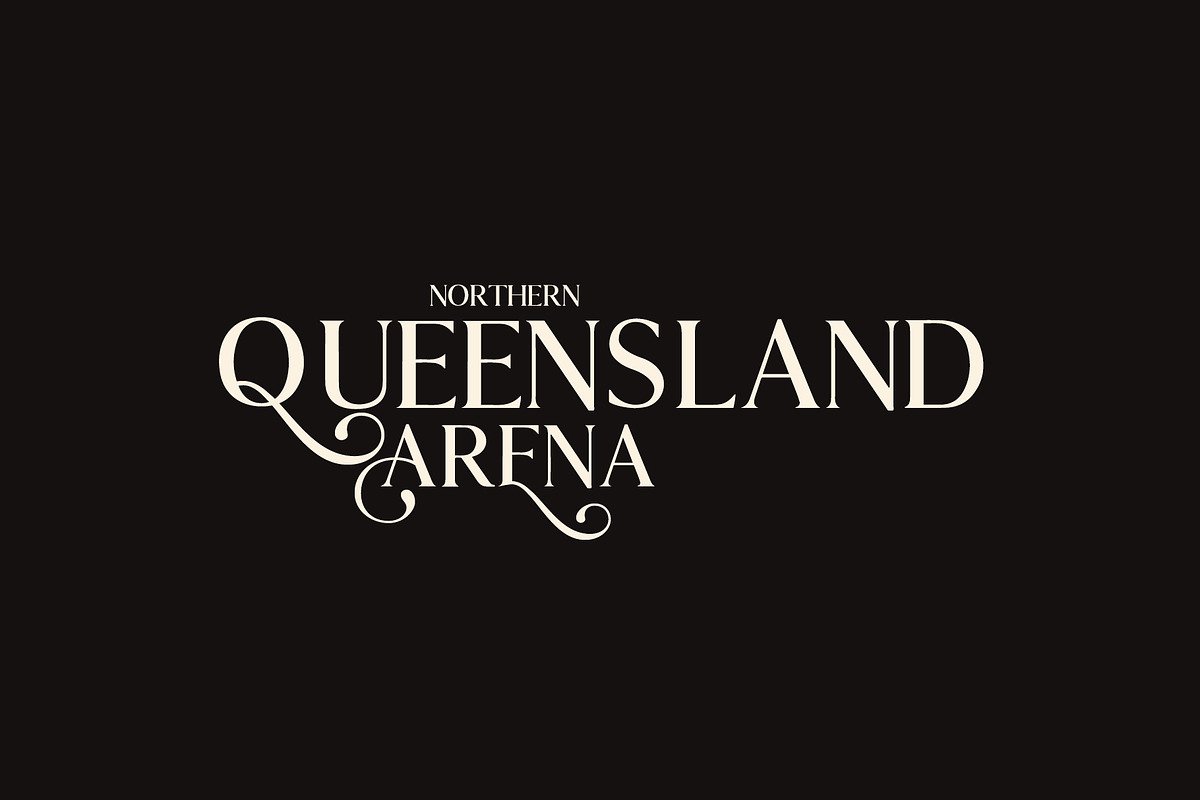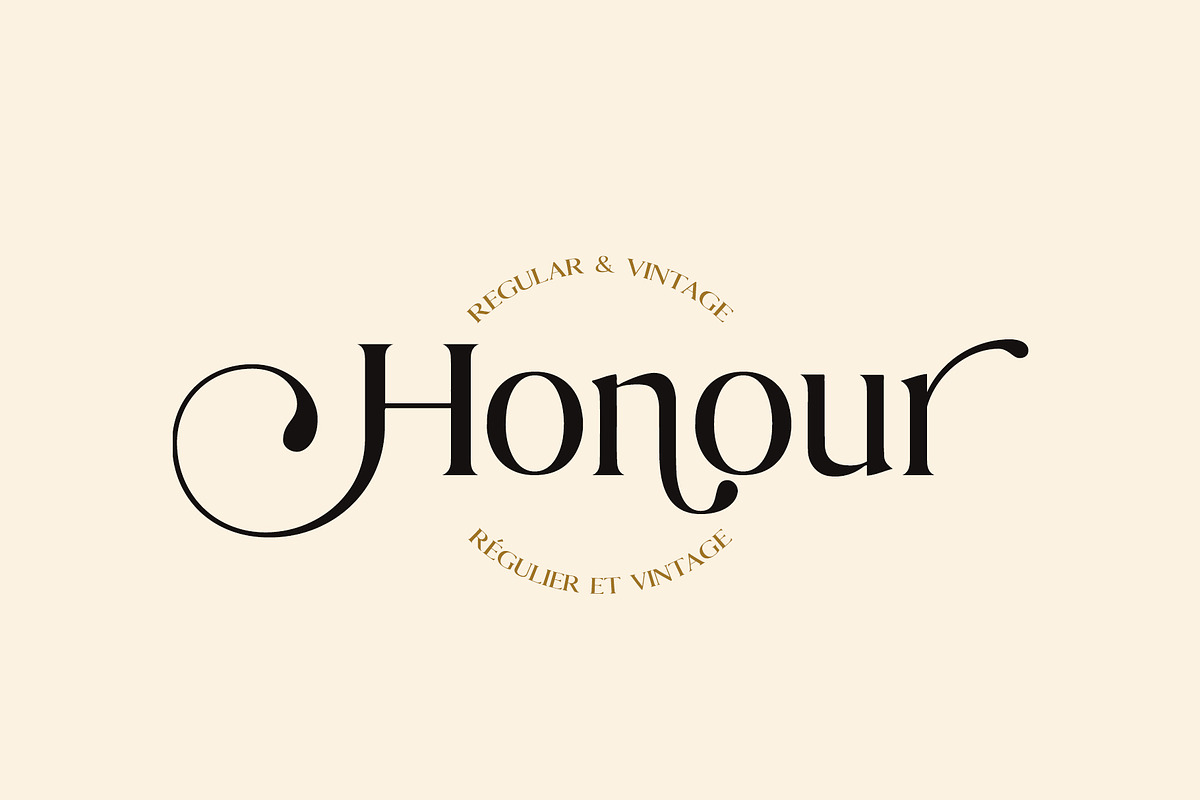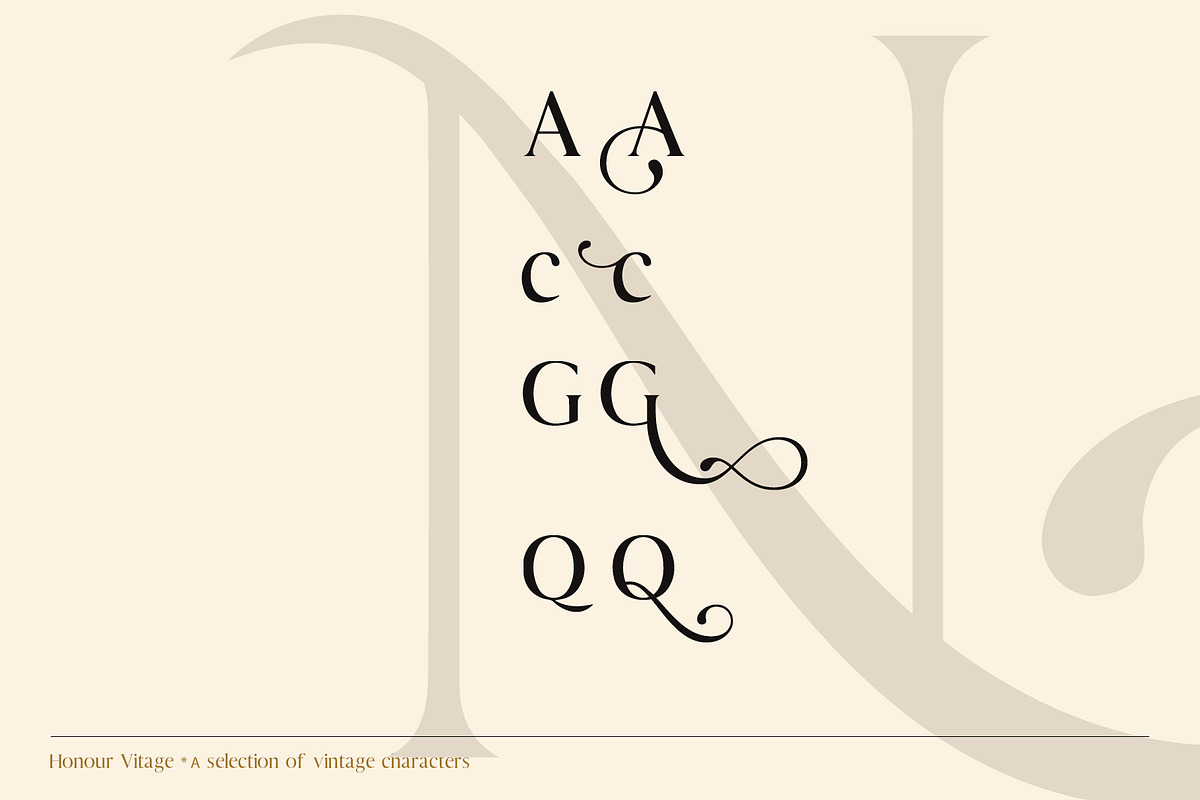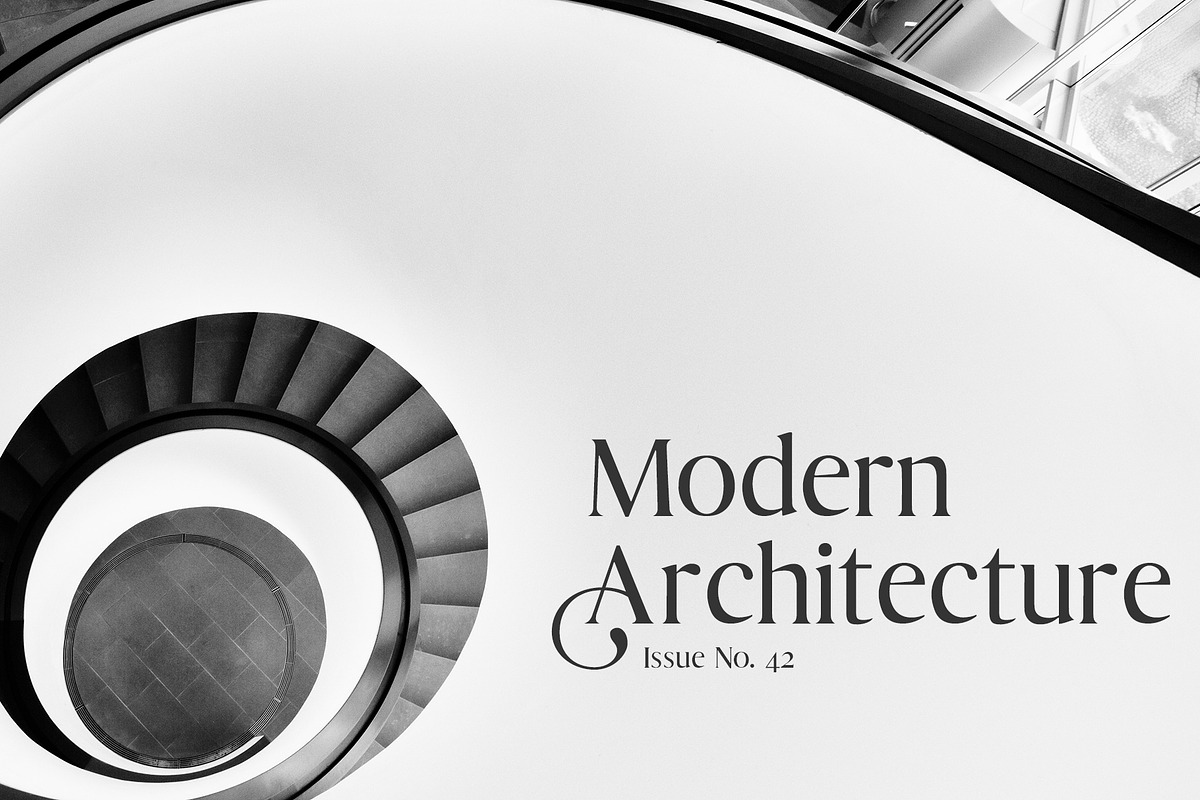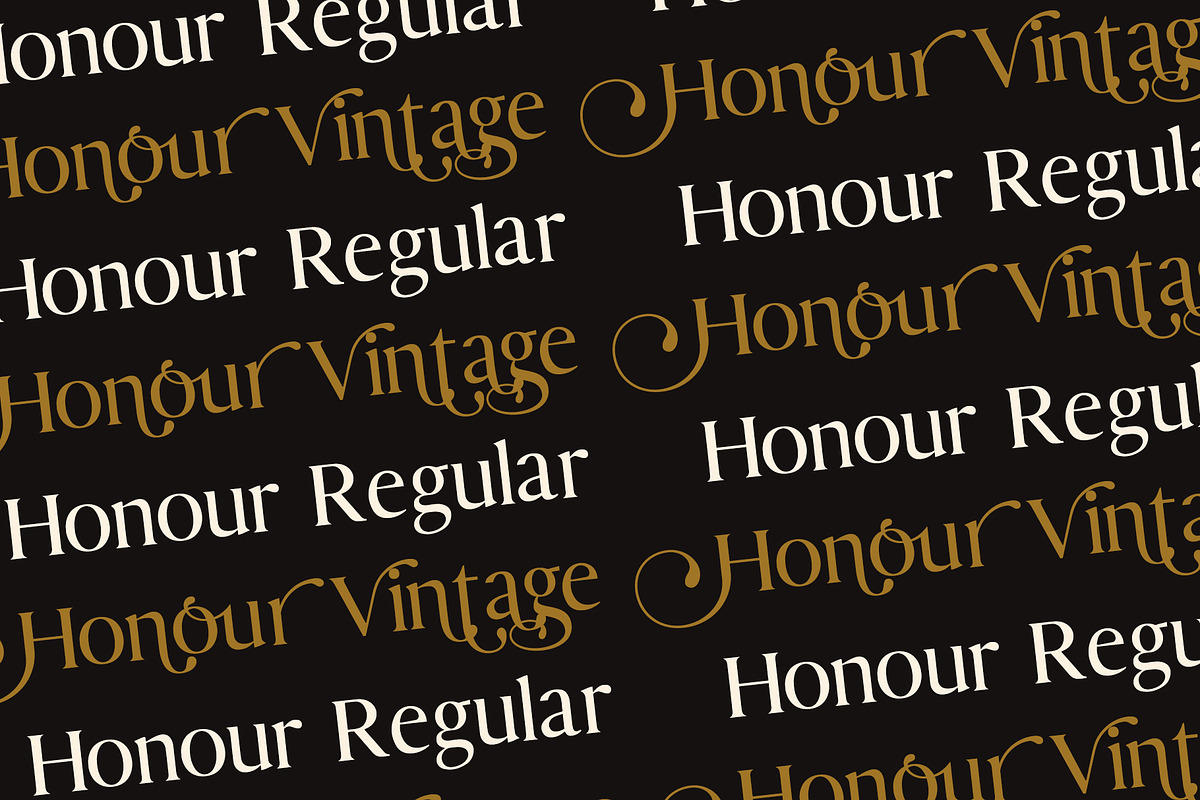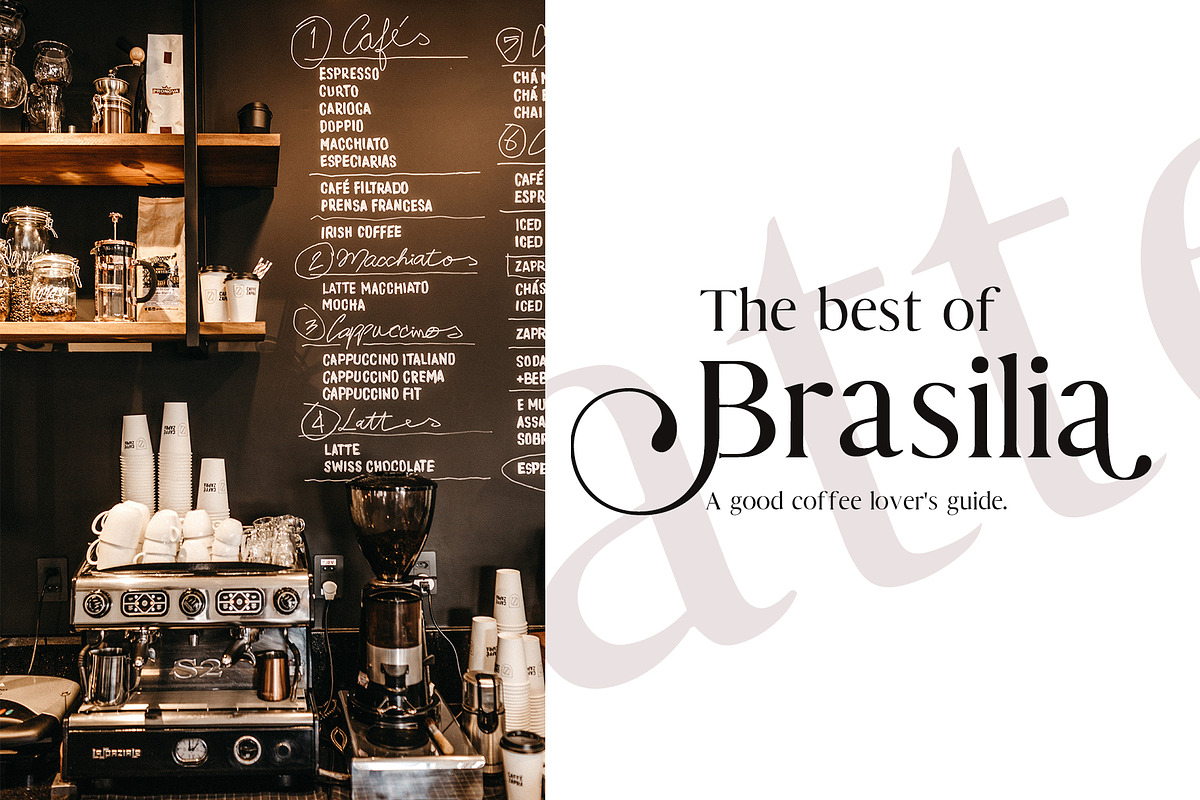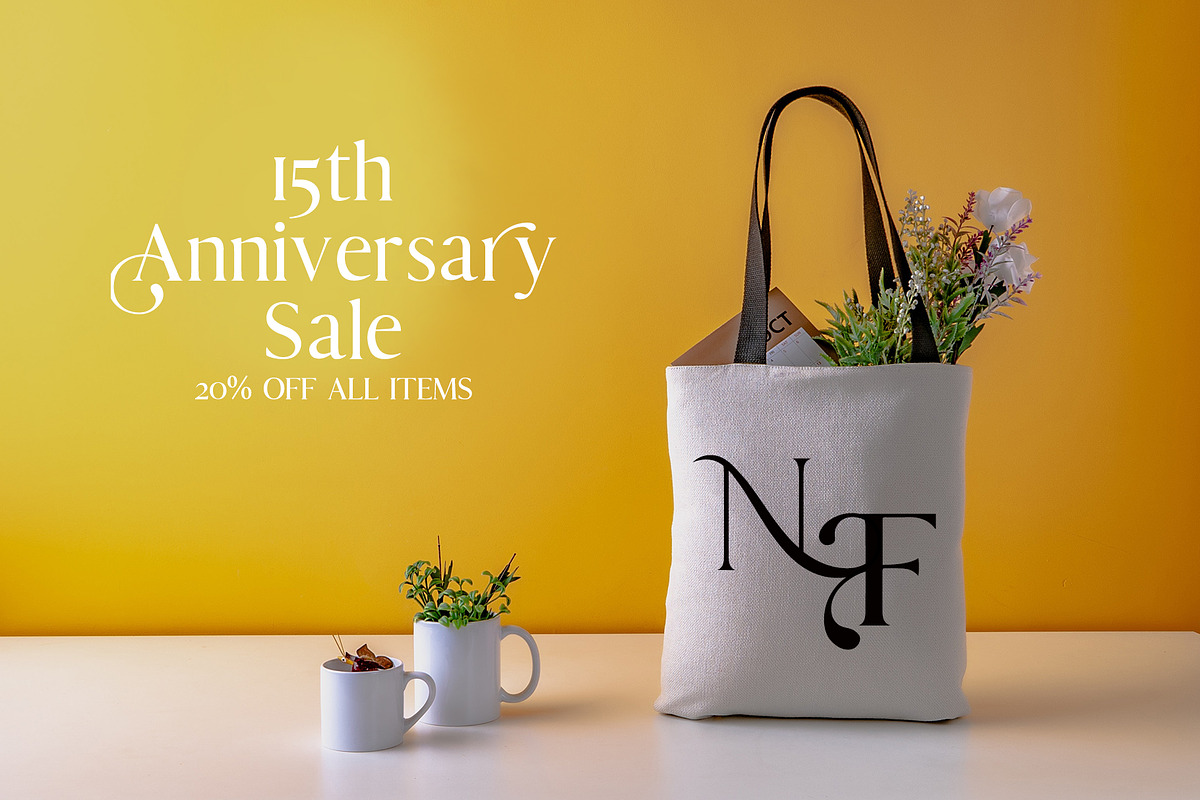
Honour Modern & Vintage Font
This is Honour - a double font of Modern and Vintage. The best part of Honour is that it has an amazing collection of swashes; accessible through OpenType features in Honour Regular or directly through Honour Vintage.
These fonts are suitable for magazines, logos, stationery, social media quotes, fashion, and much more. The fonts comes with multilingual support, uppercase alternates, and ligatures.
- The fonts comes with multilingual support, uppercase alternates, and ligatures.